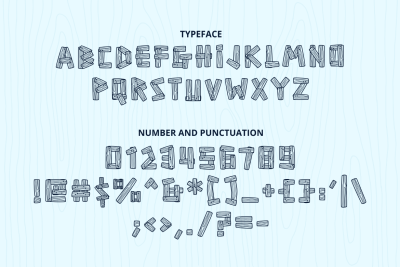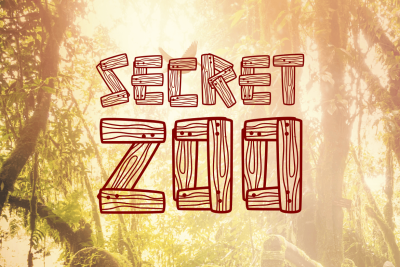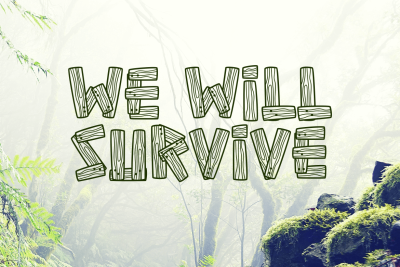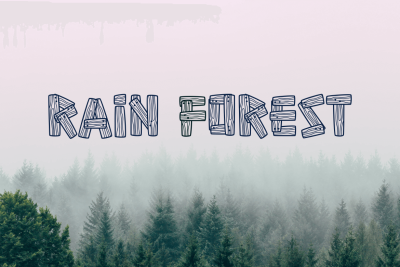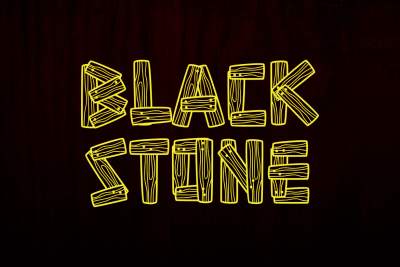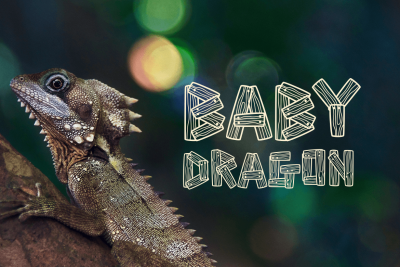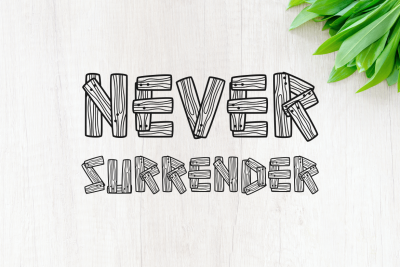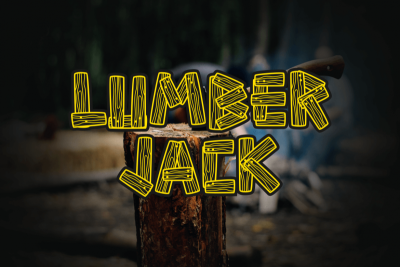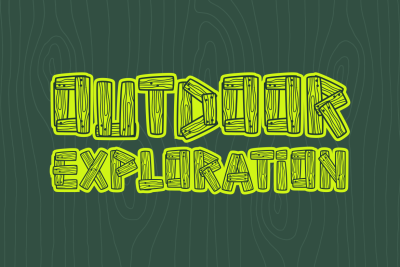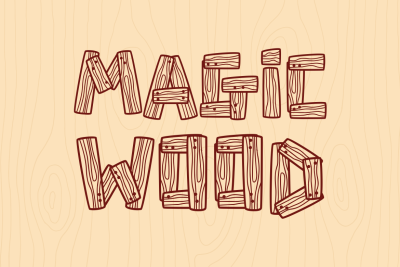
Funny Font Woody Wood brings a charming, nature-inspired vibe to any project. Each letter resembles a carved wooden log, giving the font a handcrafted, rustic feel. Itโs ideal for designs that need warmth and natural elements. Moreover, itโs perfect for kidsโ events, outdoor campaigns, or eco-conscious branding, as this typeface transforms ordinary text into a unique and inviting visual experience. By adding Woody Wood to your toolkit, youโll create a fresh, nature-inspired look that instantly catches the eye.
Woody Woodโs welcoming tone makes it a great choice for various project types. Not only does it appeal to all ages, but it also fits especially well with family-friendly, nature-based, or playful themes. Additionally, its bold, textured look is easy to read, even from a distance. This readability makes it perfect for logos, event posters, banners, and other designs that need to grab attention. With Woody Woodโs organic style, you can connect with audiences on a more personal and approachable level.
Woody Wood is ideal for designers seeking a grounded, cheerful touch. Its carved, log-like look stands out in both digital and print media. Whether youโre creating for family events, eco-conscious brands, or nature-themed merchandise, this fontโs natural appearance makes it a strong choice. Additionally, its versatility allows it to adapt across projects, from educational materials to branding efforts. Furthermore, when paired with earthy color schemes, Woody Wood brings life to your message.
This font shines in headings, banners, and branding materials. Its log-inspired style makes a bold first impression, especially where a unique look is essential. From promotional materials to social media content, Woody Wood ensures your message remains memorable. Its handcrafted feel adds depth and character, which makes it easy for viewers to connect with your design. Ultimately, Woody Wood is not just a fontโitโs a statement that brings charm, personality, and a touch of nature to any project.